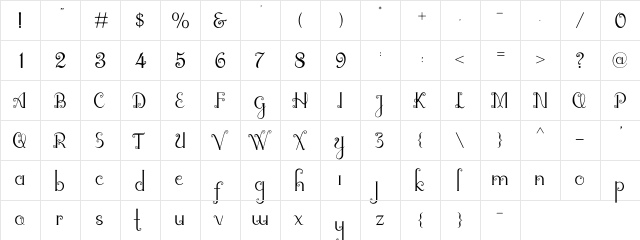
alleha Regular
| Designer | Kapri Prianto |
Design Context for alleha Typeface
alleha is a composed and adaptable typeface that performs quietly and consistently across a wide range of design contexts.